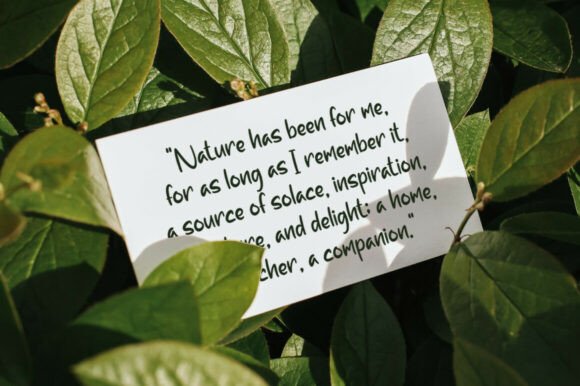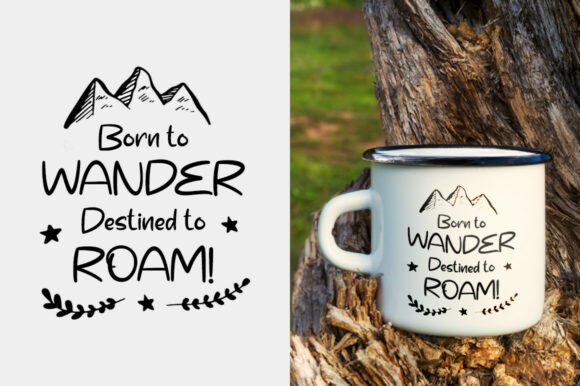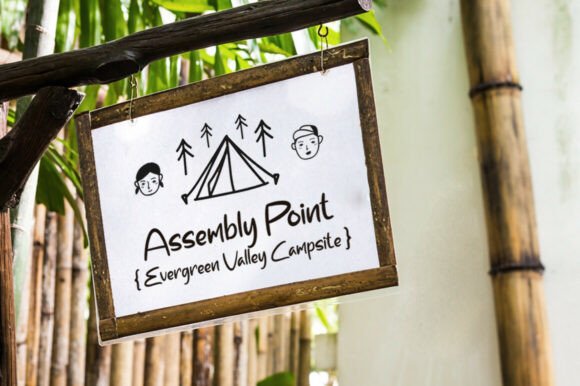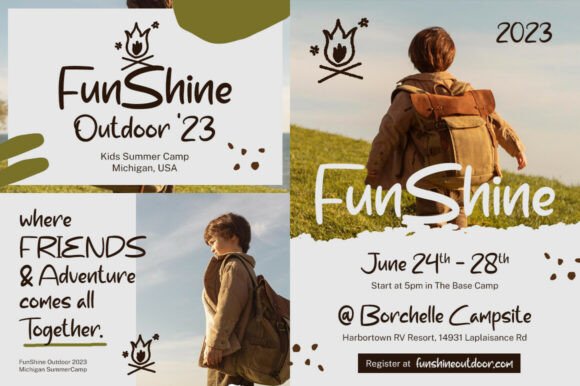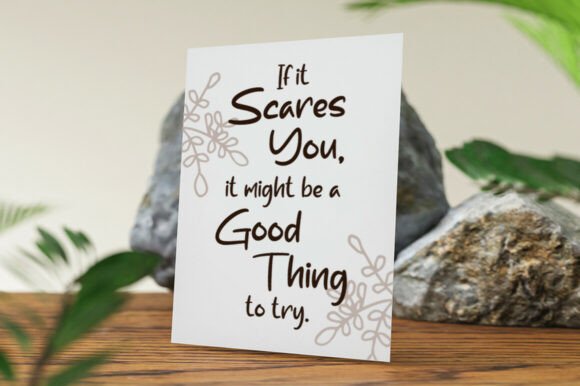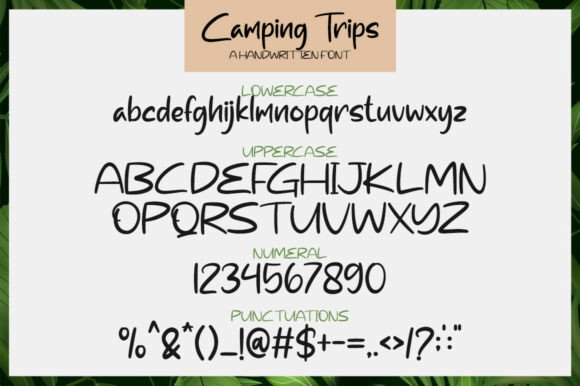
Camping Trips Font: A Lovely and Timeless Handwritten Font for Designers and Crafters
Are you a designer or crafter looking for a unique and eye-catching font to elevate your branding, logos, and quotes? Look no further than Camping Trips Font, a lovely and timeless handwritten font that’s perfect for a wide range of creative projects. In this article, we’ll take a closer look at Camping Trips Font, its features, and how you can use it to take your designs to the next level.
What is Camping Trips Font?
Camping Trips Font is a beautiful, handwritten font that’s inspired by the great outdoors. Its unique and elegant lettering makes it perfect for creating stunning logos, branding, and quotes that are sure to grab attention. Whether you’re a designer, crafter, or DIY enthusiast, Camping Trips Font is an excellent choice for adding a personal touch to your projects.
Key Features of Camping Trips Font
- Handwritten style: Camping Trips Font features a lovely, handwritten style that’s both elegant and approachable.
- Timeless design: Unlike trendy fonts that quickly go out of style, Camping Trips Font has a timeless design that’s sure to remain relevant for years to come.
- Versatile: This font is perfect for a wide range of creative projects, from logos and branding to quotes and social media graphics.
- Easy to read: Despite its elegant style, Camping Trips Font is easy to read, making it perfect for body text and captions.
How to Use Camping Trips Font
Camping Trips Font is incredibly versatile, and can be used for a wide range of creative projects. Here are a few ideas to get you started:
- Logos and branding: Use Camping Trips Font to create a unique and memorable logo for your business or brand.
- Quotes and social media graphics: Add a personal touch to your quotes and social media graphics with Camping Trips Font.
- Invitations and stationery: Use Camping Trips Font to create beautiful invitations, stationery, and greeting cards.
- Crafting and DIY projects: Add a personal touch to your crafting and DIY projects, such as scrapbooking, journaling, and sewing.
Why Choose Camping Trips Font?
With so many fonts to choose from, why should you choose Camping Trips Font? Here are a few reasons:
- Unique style: Camping Trips Font has a unique and elegant style that’s sure to stand out from the crowd.
- High-quality design: This font is designed with high-quality craftsmanship in mind, ensuring that it looks great in any context.
Tips for Using Camping Trips Font
Here are a few tips for getting the most out of Camping Trips Font:
- Experiment with different sizes: Camping Trips Font looks great in a wide range of sizes, from small captions to large headings.
- Pair with other fonts: Try pairing Camping Trips Font with other fonts to create a unique and eye-catching combination.
- Use for body text: While Camping Trips Font is perfect for headlines and titles, it’s also easy to read for body text.